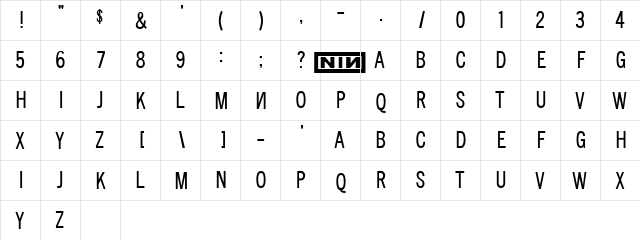
Halo Eleven Normal
Design Context for Halo Eleven Typeface
Halo Eleven is a composed and adaptable typeface that performs quietly and consistently across a wide range of design contexts.
Pro Tip: Use Halo Eleven in both headline and body roles to test its range before committing to a single application.